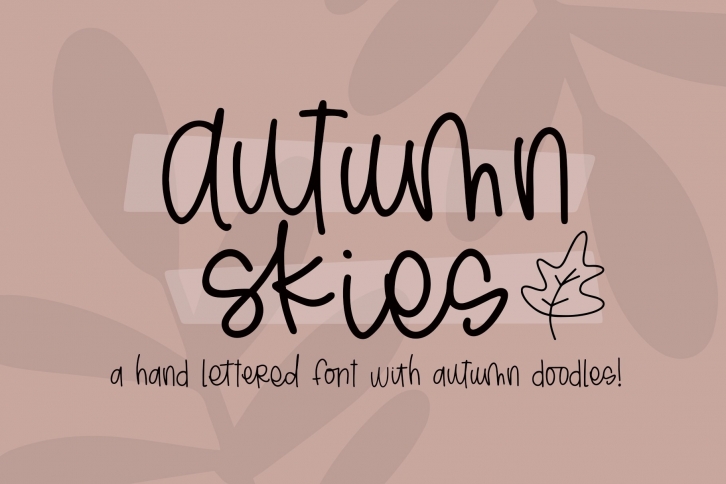
Autumn Skies Hand Lettered is a beautiful font that was designed by Dansie Design. It's a great choice for designers and creatives who need such a font. It was released on September 1, 2020 and the file size is 5.16 MB. Autumn Skies Hand Lettered may give a more youthful, expressive and casual look to your project. It is a very beautiful, refined, elegant, and high-quality font.